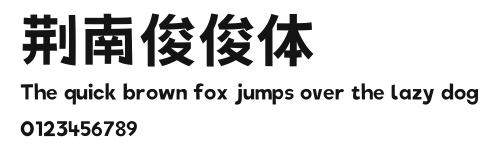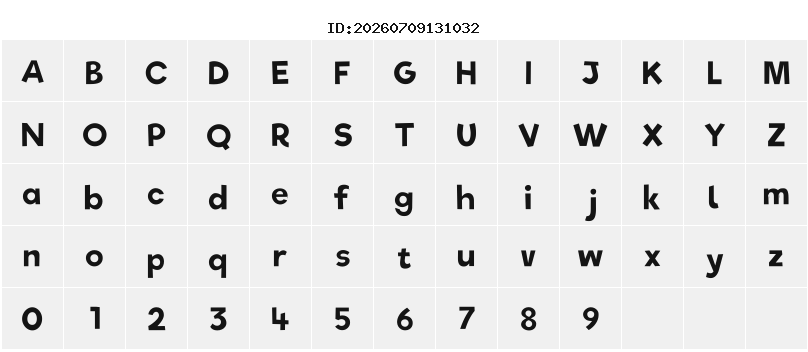
荆南俊俊体 Preview
About 荆南俊俊体.otf
荆南俊俊体.otf is a modern, elegant sans-serif font designed for ultimate readability and visual harmony. Perfect for branding, headlines, web design, and print materials.